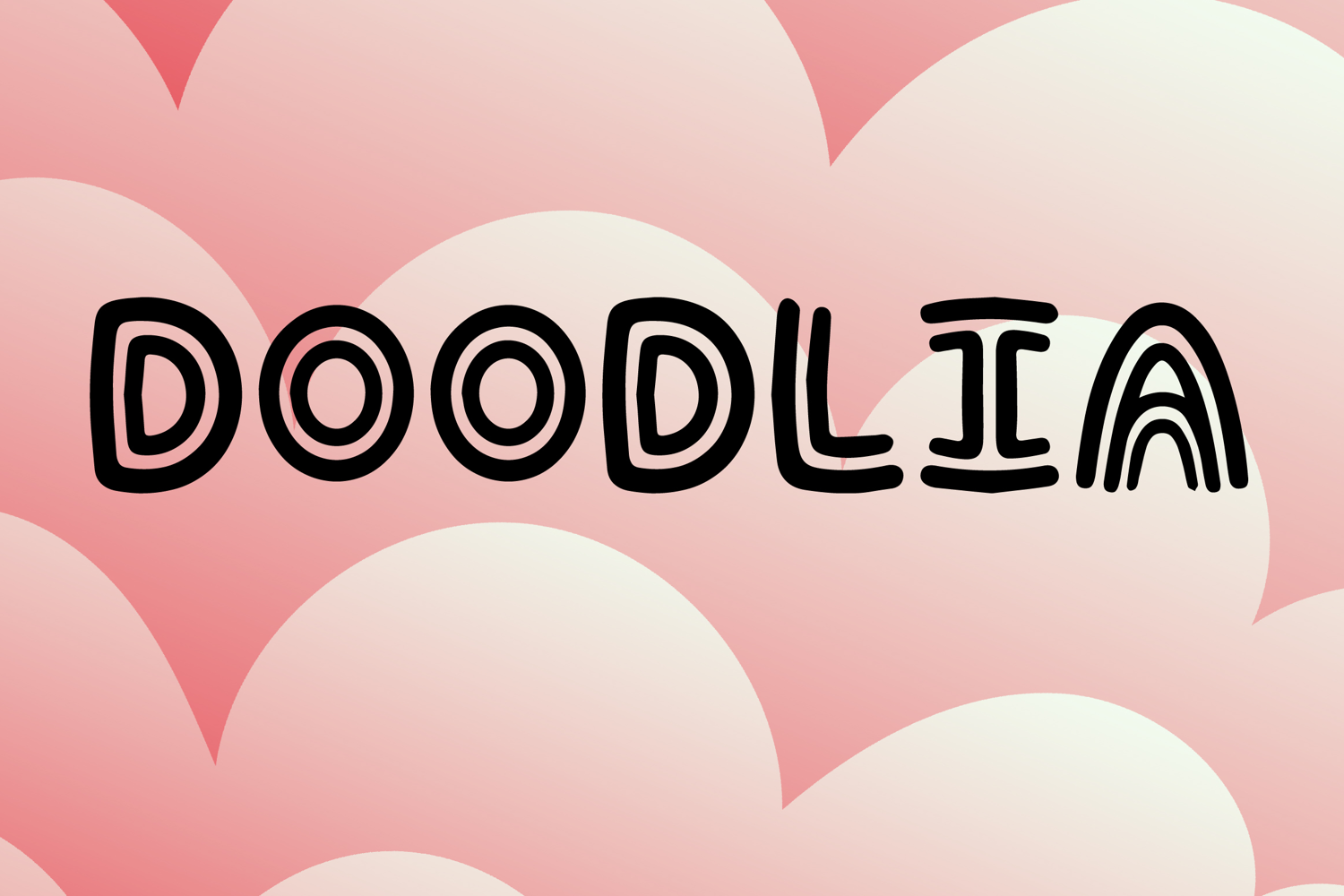
Doodlia
Doodlia is a playful display font with a fun hand-drawn style and cheerful doodle-inspired charm. Its uppercase letterforms feature rounded strokes, sketch-like inner details, and quirky uneven shapes that create a friendly, creative, and eye-catching look. Designed with uppercase letters A–Z and numbers 0–9, Doodlia is perfect for branding, posters, packaging, invitations, logos, social media graphics, and creative projects that need a cute and memorable statement.